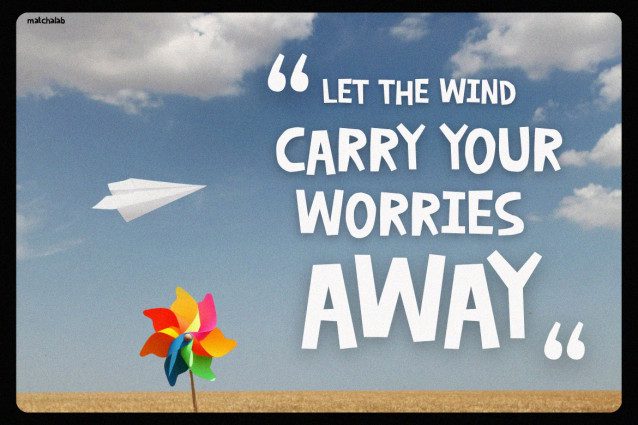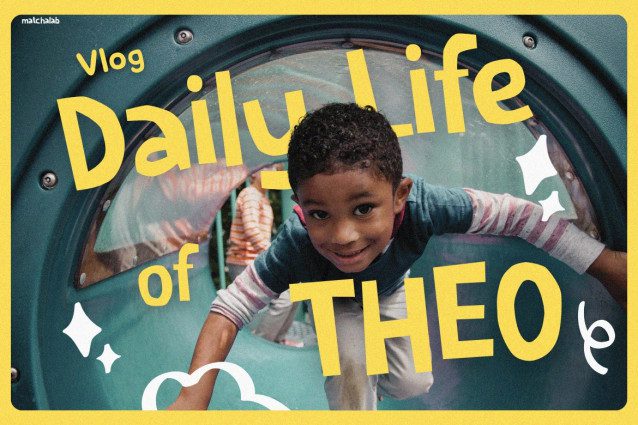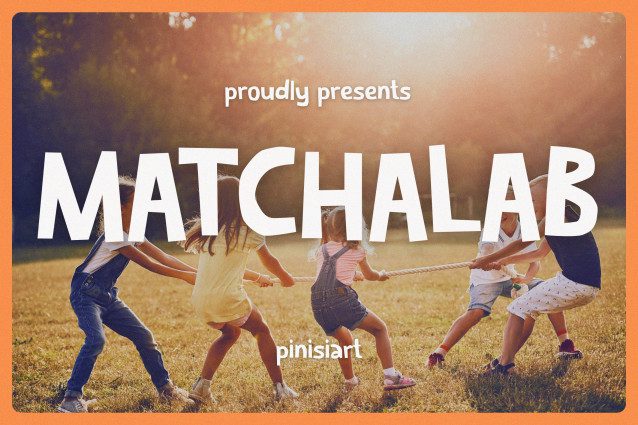
Matchalab Font
Matchalab Font is a uniquely crafted display typeface that perfectly balances playfulness and elegance. With its rounded edges, organic lines, and smooth flow, this font effortlessly adds warmth and authenticity to every design. Moreover, it combines simplicity with creativity, making it both eye-catching and comfortable to read. Because of its charming curves and soft rhythm, it instantly draws attention while maintaining a professional look. Therefore, whether you’re designing for Instagram, branding materials, or lifestyle projects, Matchalab naturally brings a friendly, handcrafted vibe to your work.
What truly makes Matchalab special is its ability to adapt across styles. While many fonts feel rigid or cold, Matchalab feels alive and expressive. It transitions smoothly from bold headlines to casual captions, ensuring that your message remains stylish yet approachable. In addition, its clean aesthetic makes it suitable for minimalist designs, while its playful charm enhances creative layouts. As a result, it becomes an excellent choice for anyone seeking a balance between artful expression and modern design clarity.